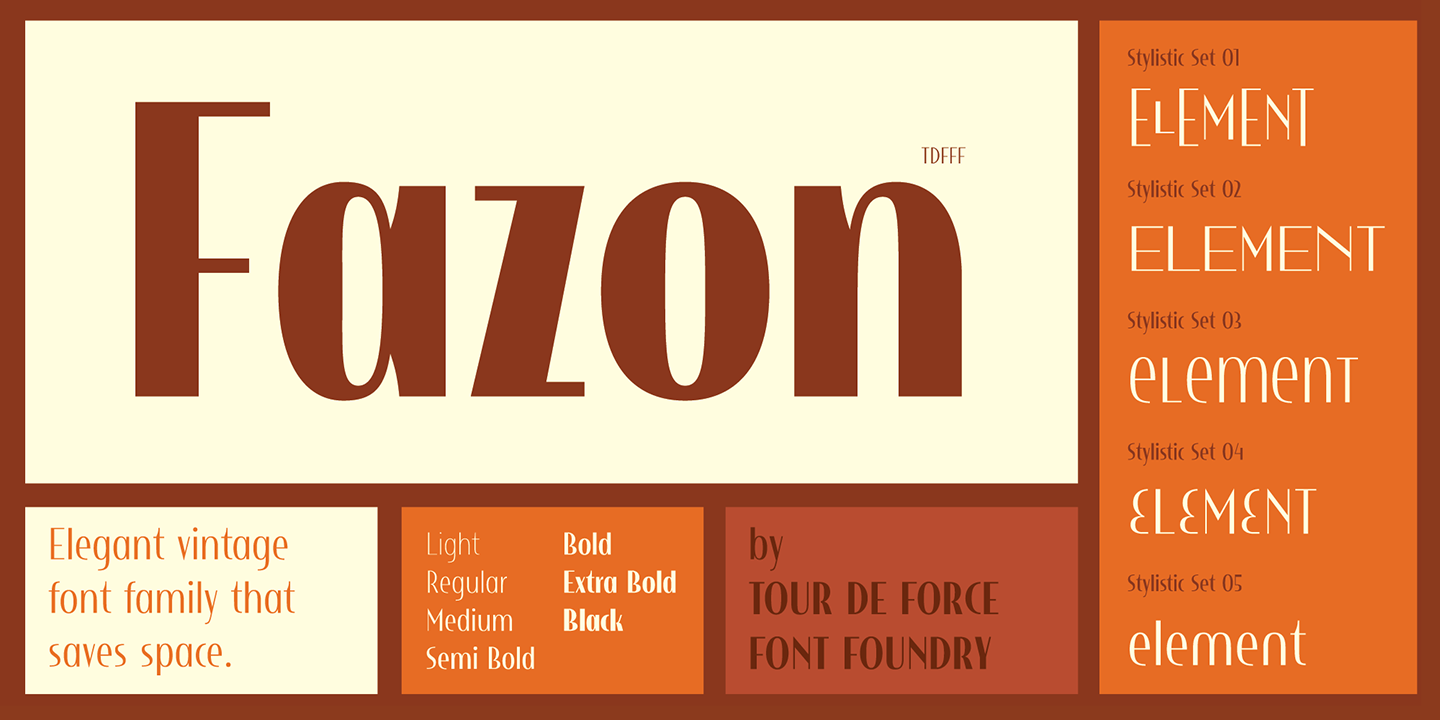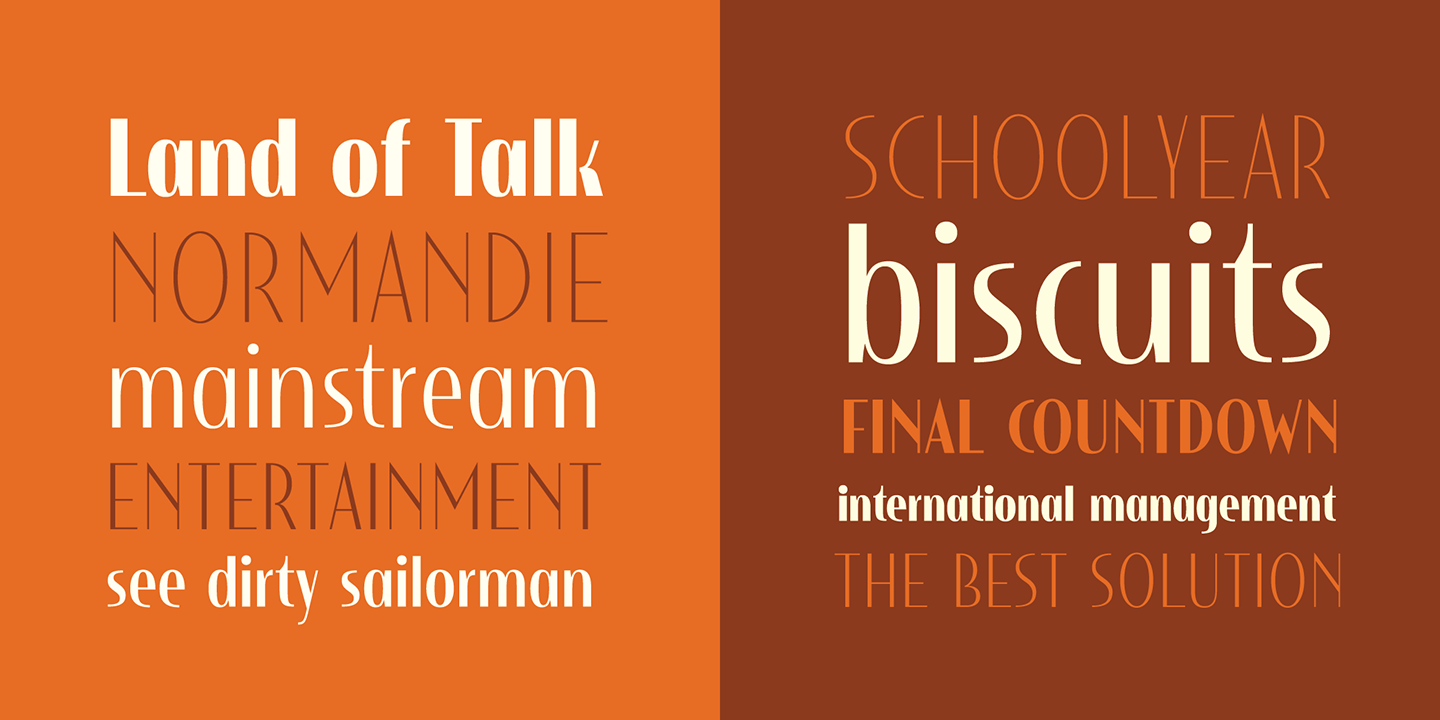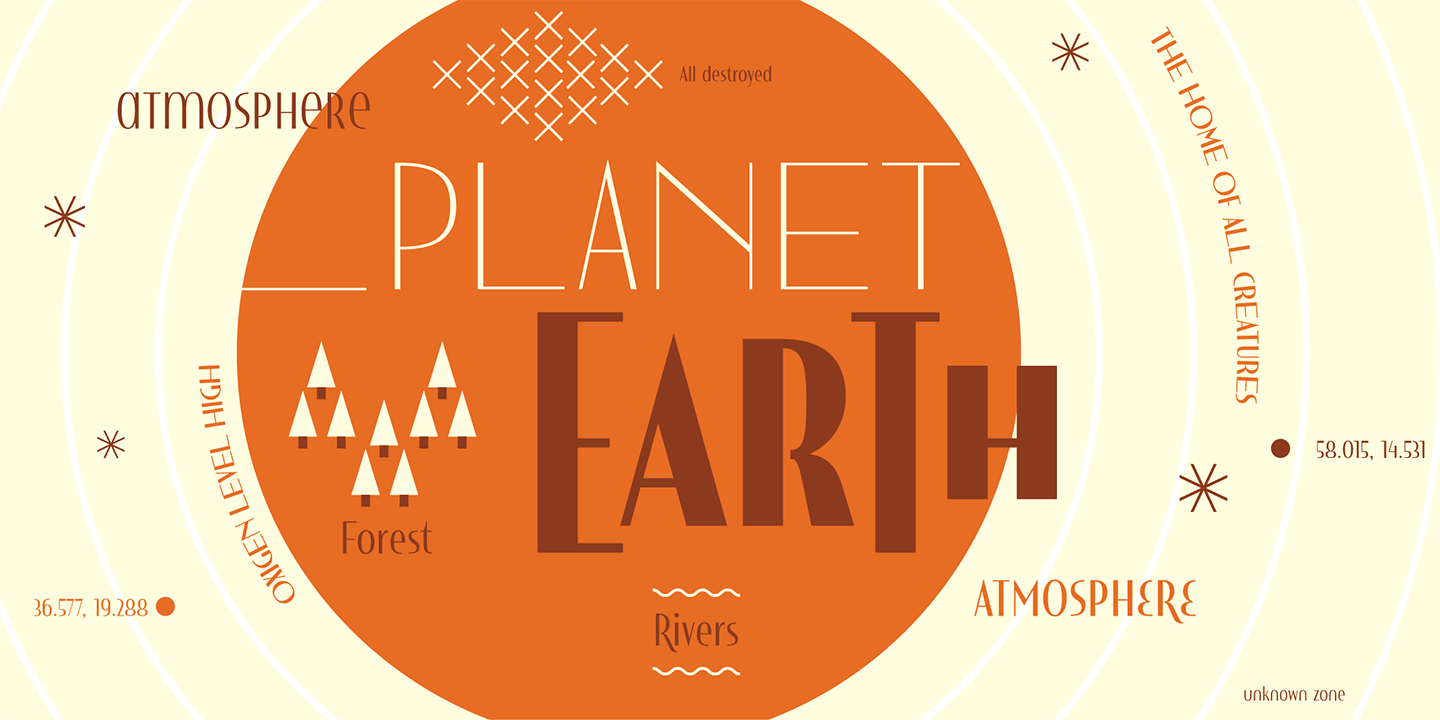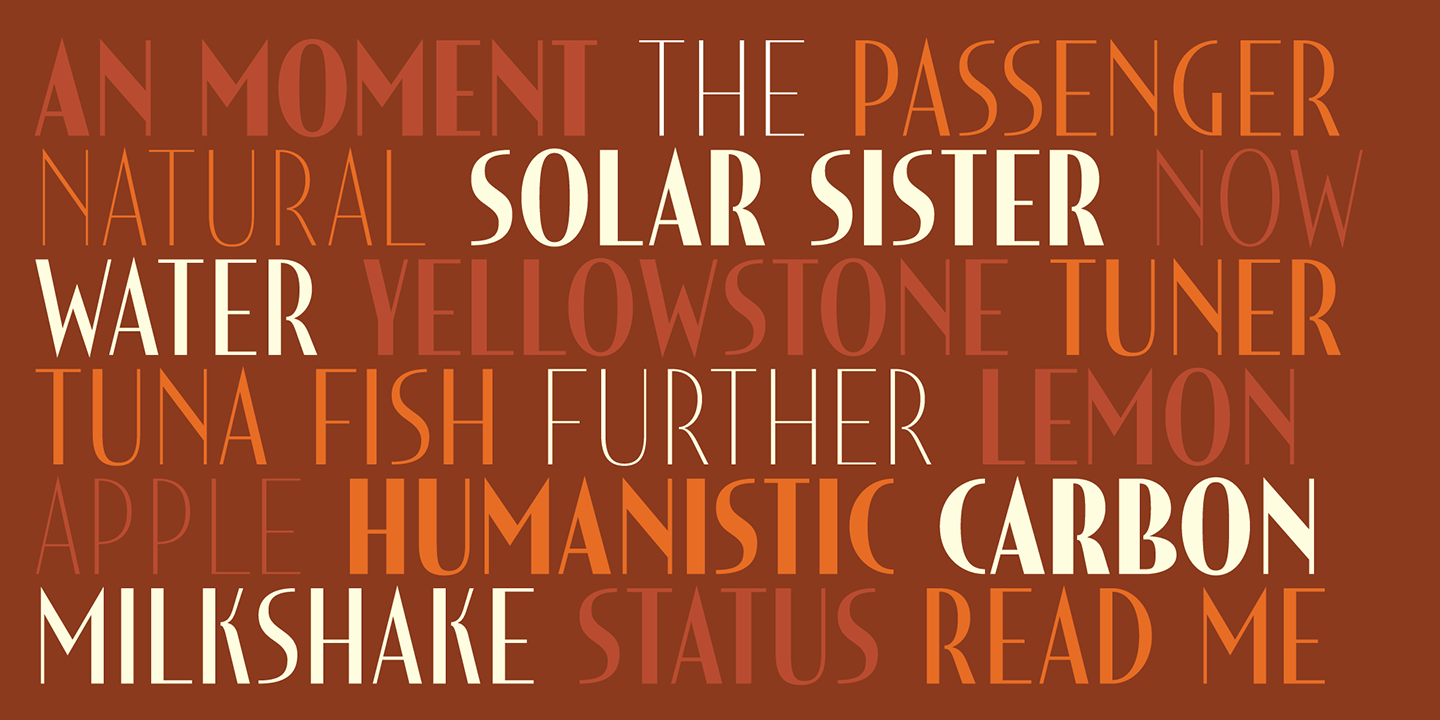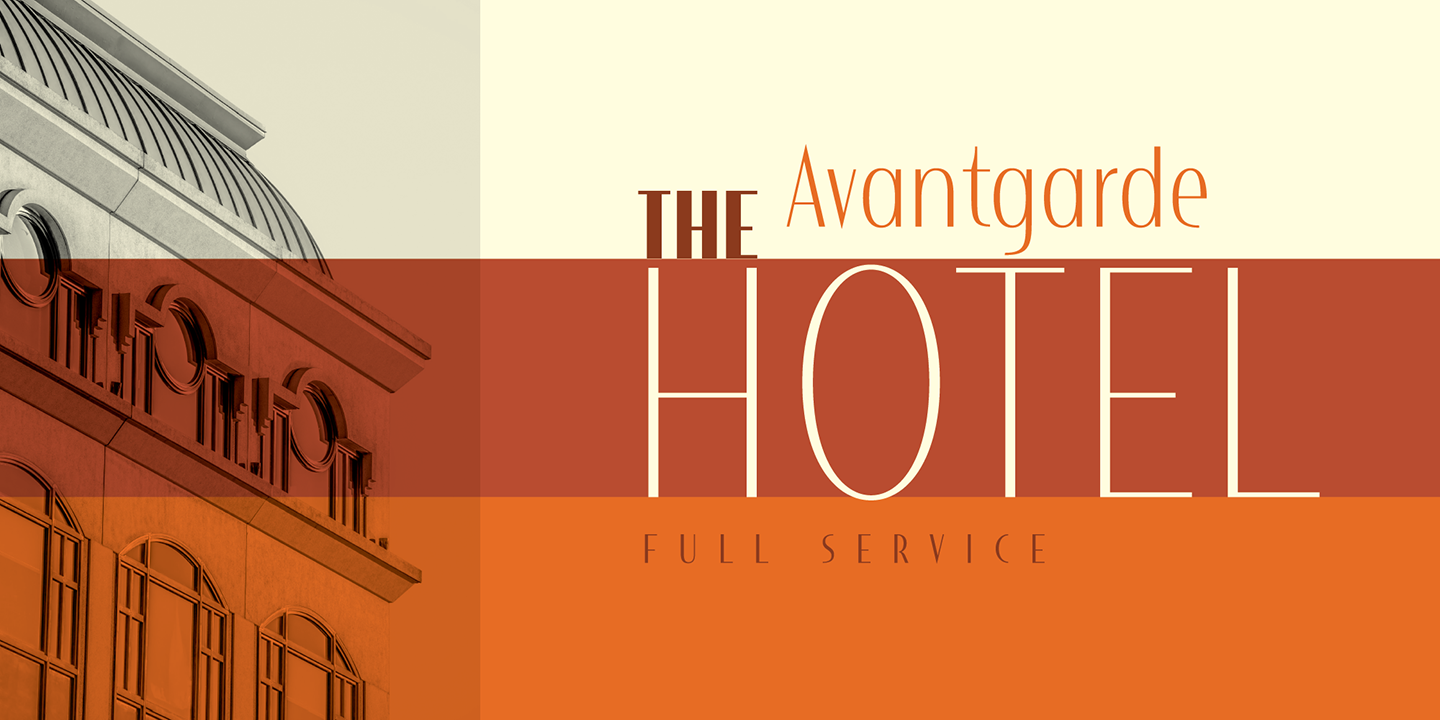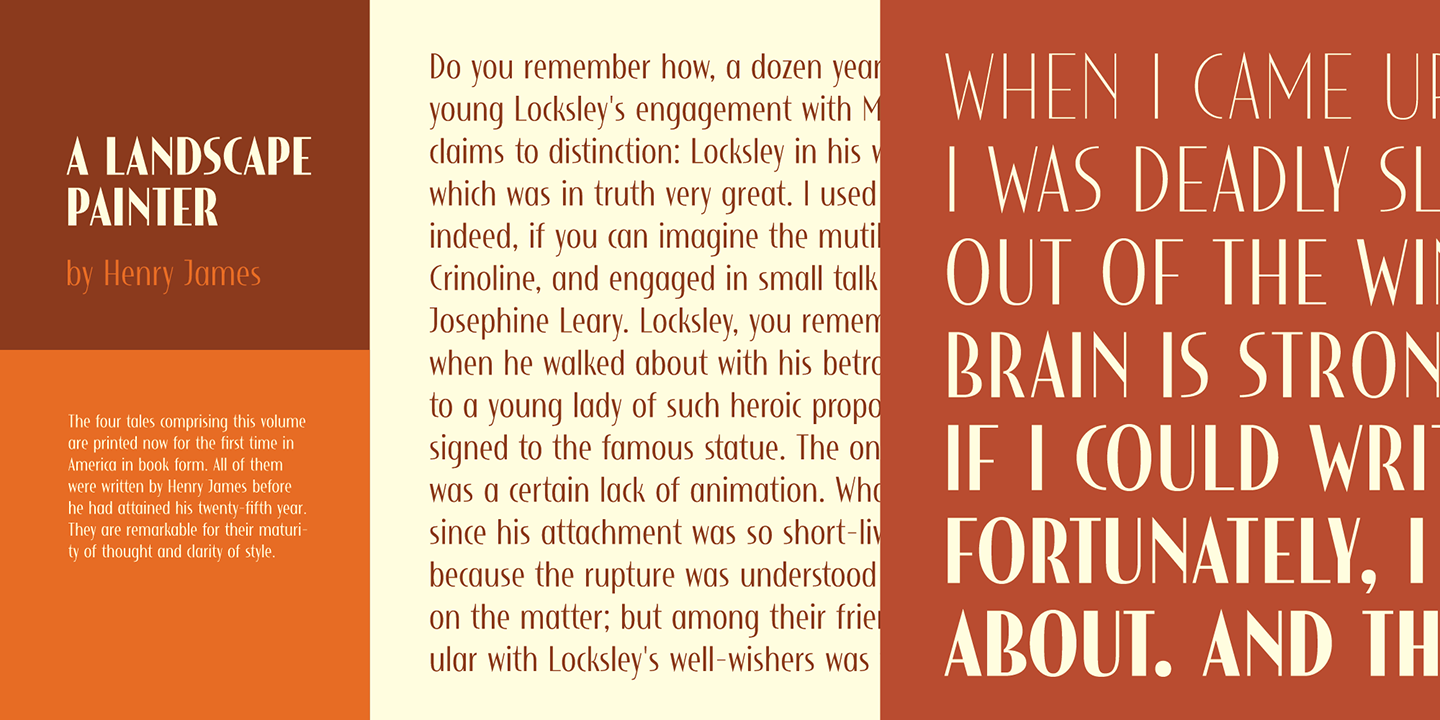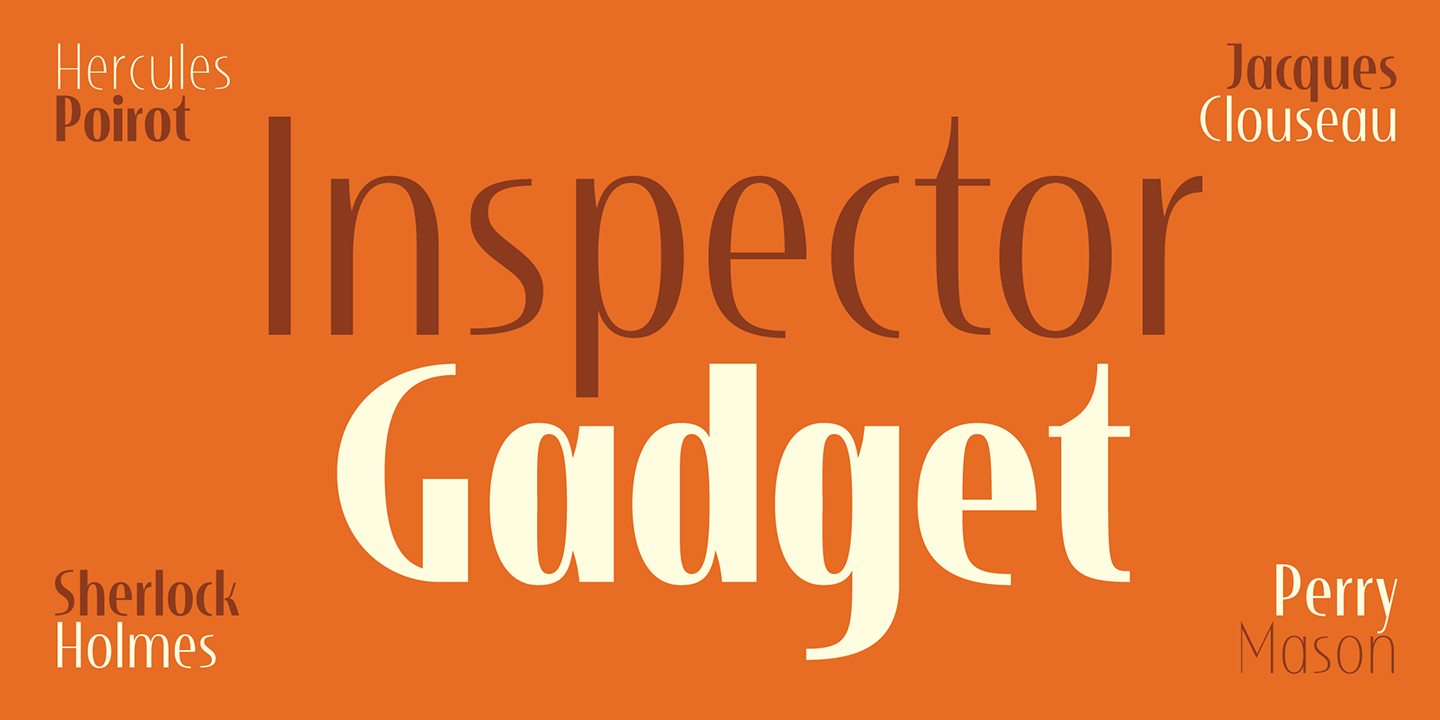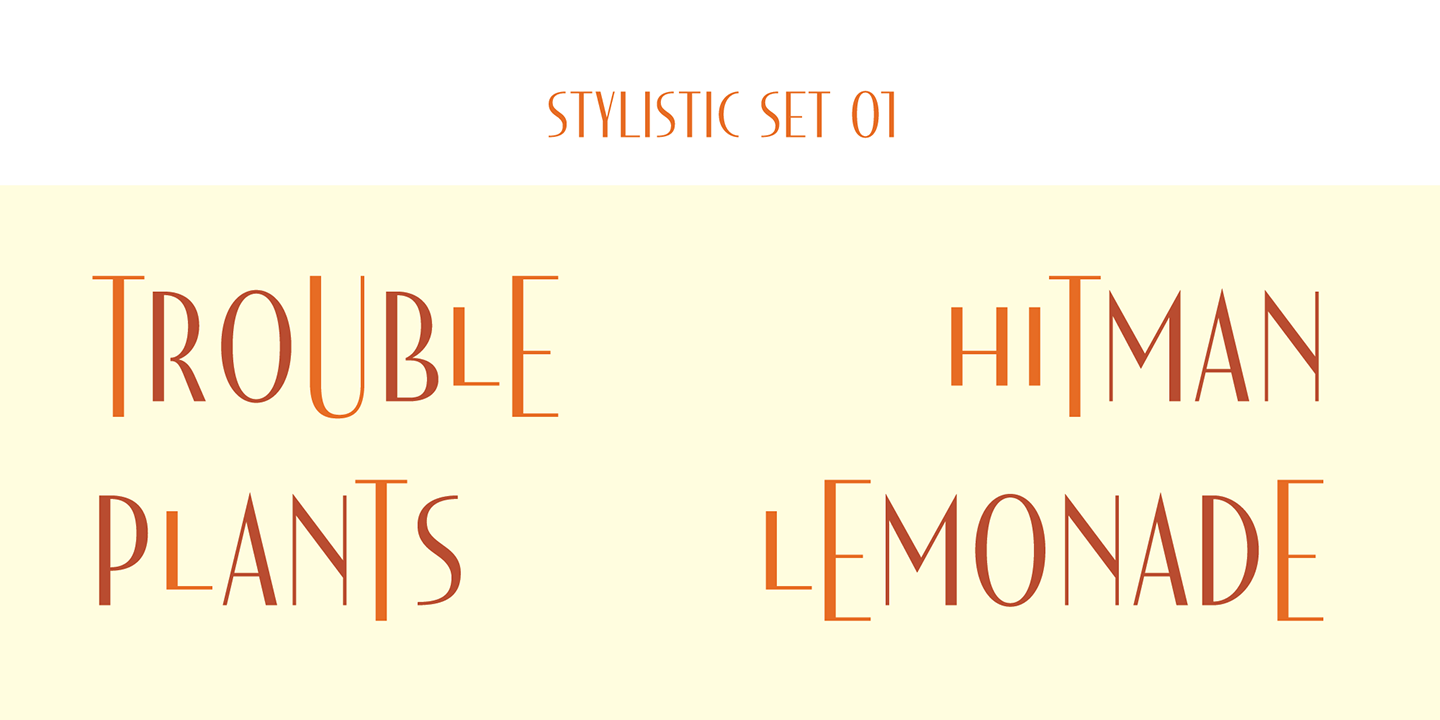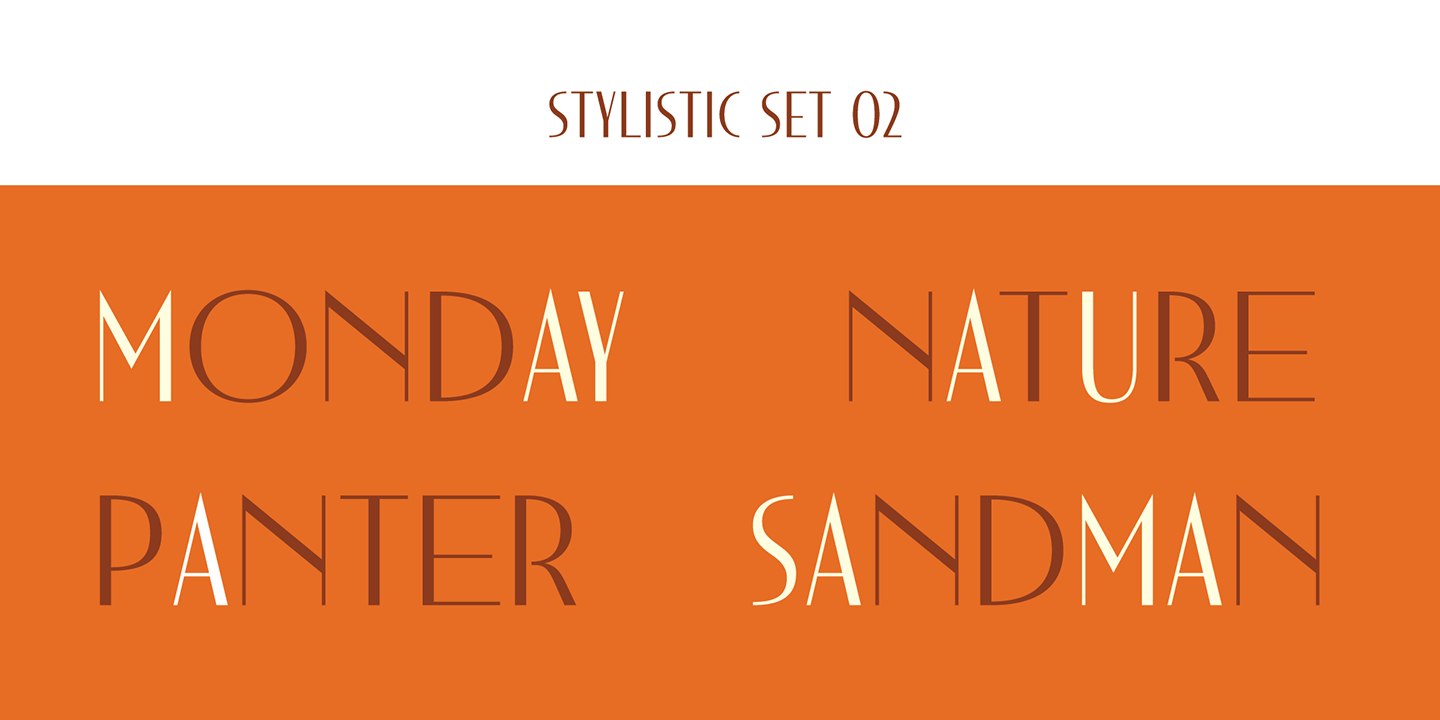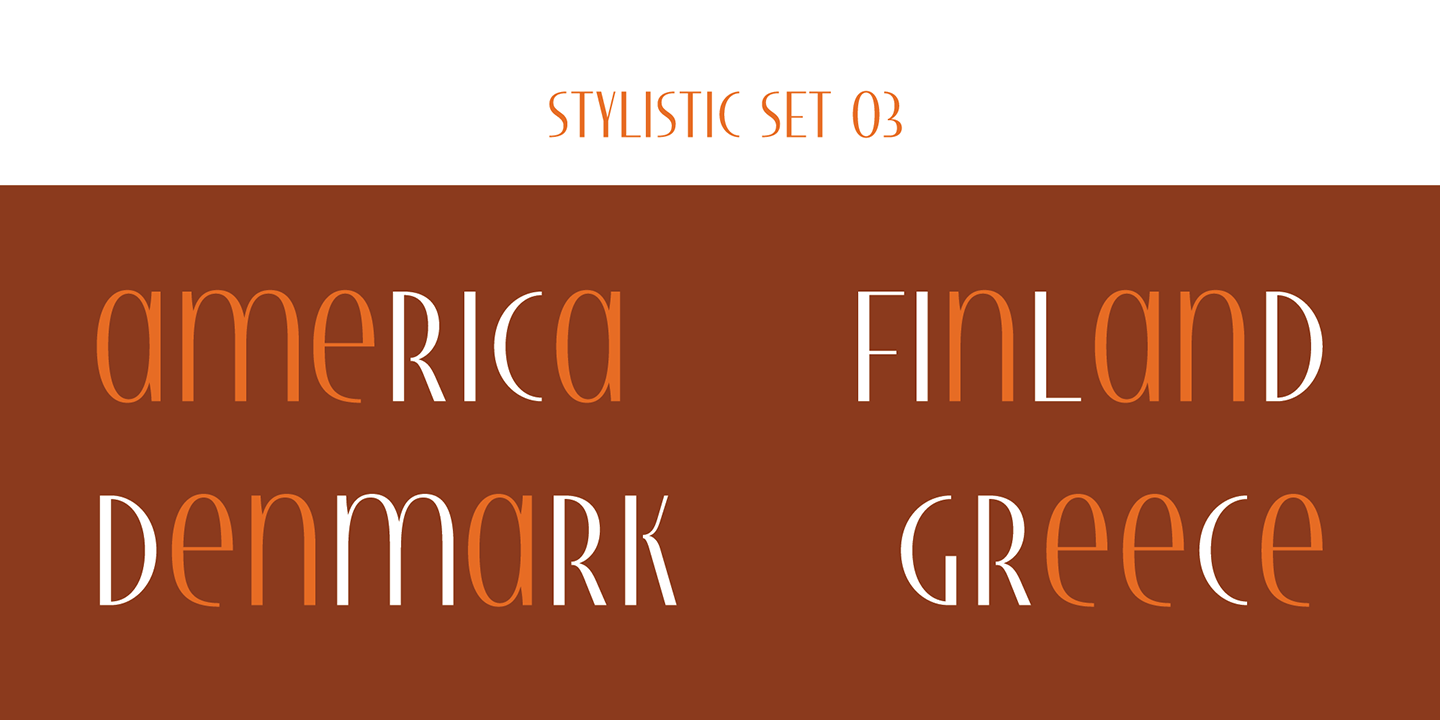
Compact and condensed, Fazon font family belongs to design inspired by vintage typefaces.
Compact and condensed, Fazon font family belongs to design inspired by vintage typefaces. It is available in 7 weights – from Light to Black.
Contrast in letter design gets higher as weights get thicker which assigns dose of display elements in heavier weights of Fazon.
Contains 5 stylistic sets (4 for uppercase and 1 for lowercase letters) and fractions.
Fazon covers extended Latin character map. Ideal usage: packages and labels, posters, titles, websites.